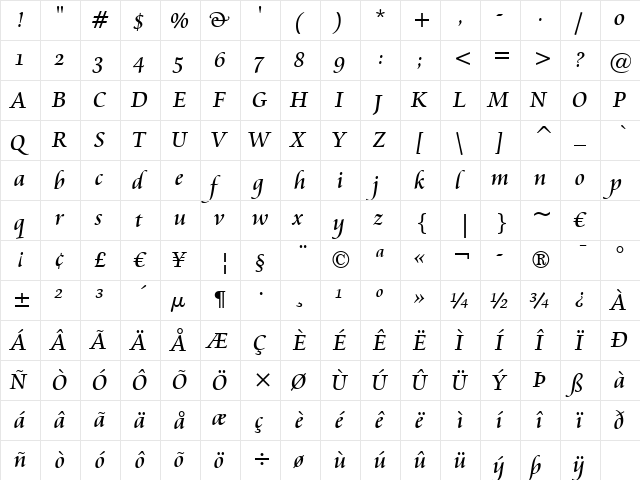
Cataneo OSF BT Regular
Design Context for Cataneo OSF BT Typeface
Cataneo OSF BT is a composed and adaptable typeface that performs quietly and consistently across a wide range of design contexts.